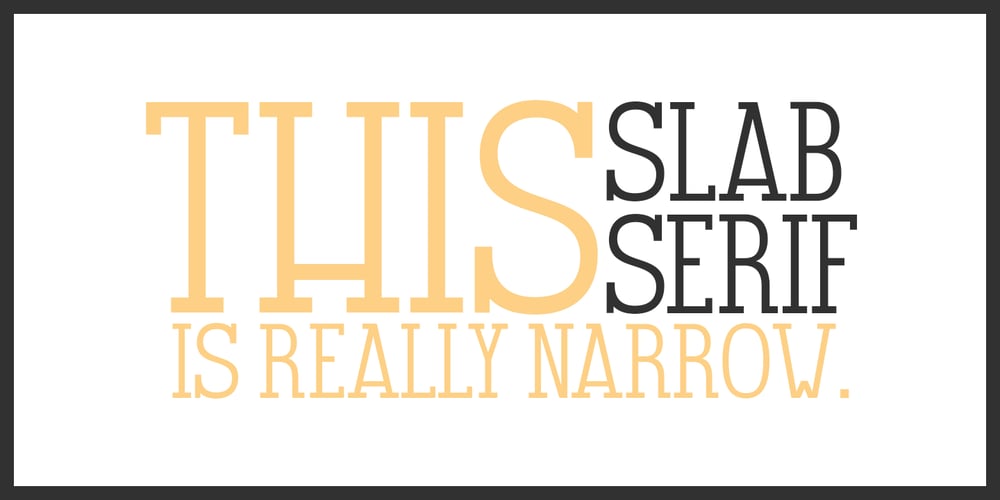
GL Tetuan Font Family was designed by Germán León and published by Fontbilisi. GL Tetuan contains 6 styles and family package options. If you are searching for a stylish font to fit in a not very wide space, GL Tetuan is your font. Slab, modern but with a touch of oldstyle, compatible with many languages, including special characters and very nice ligatures. It includes Cyrilic, Georgian and Greek alphabets.